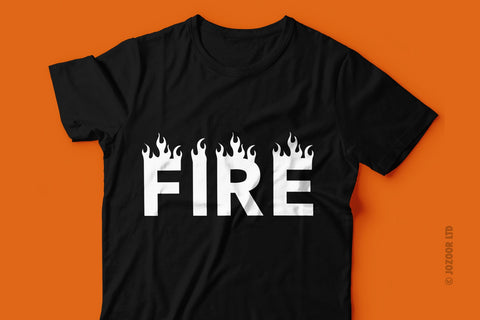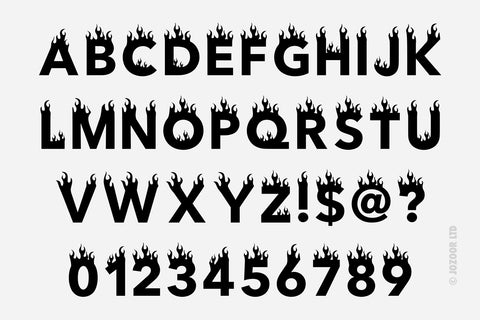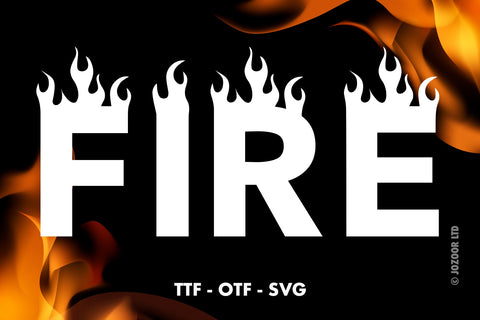
Fire Font
Fire is a unique flame decorative font. It can be used in your new projects such as crafting, t-shirt designs, posters, digital designs, presentations, book covers, and much more.